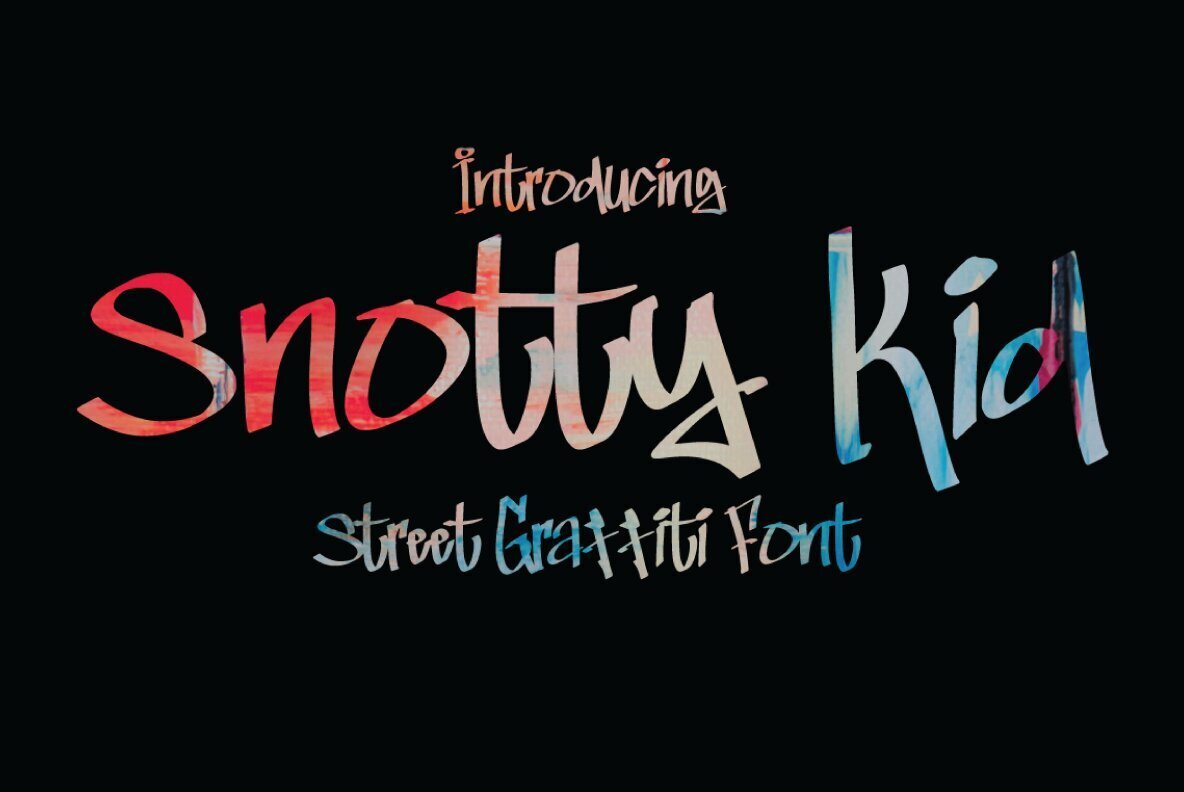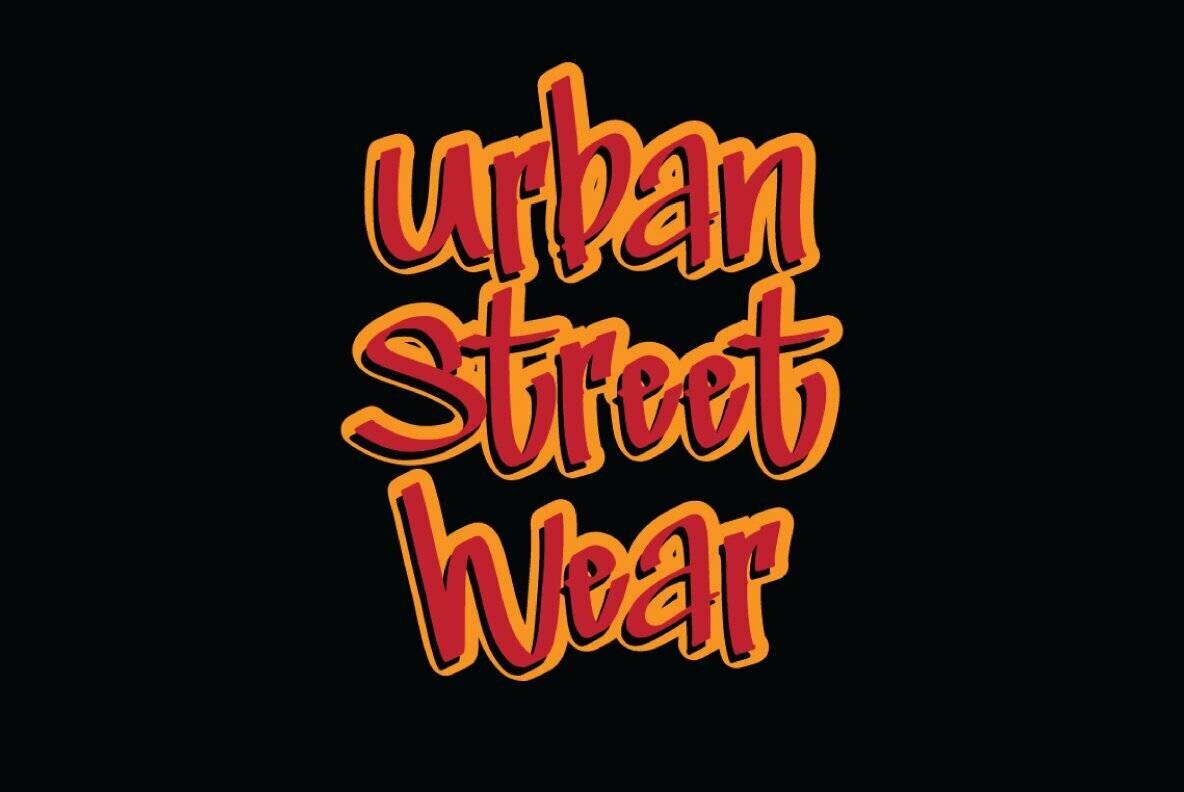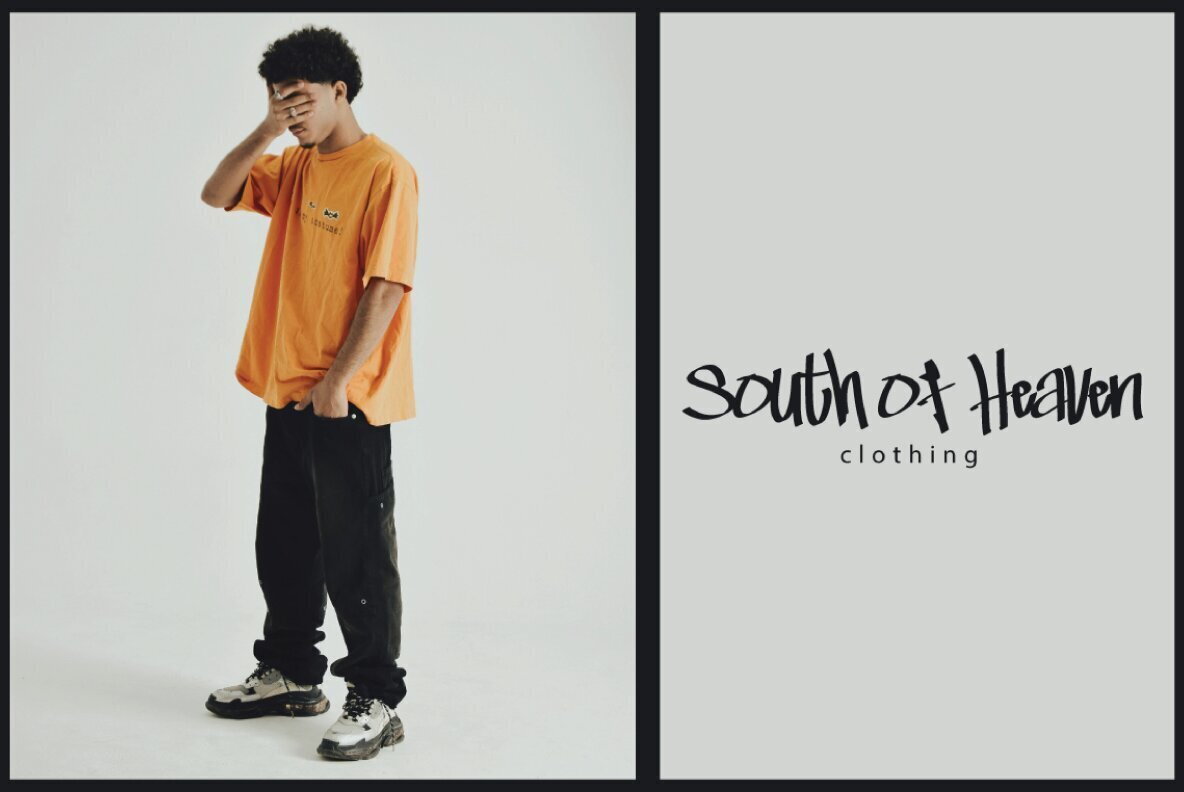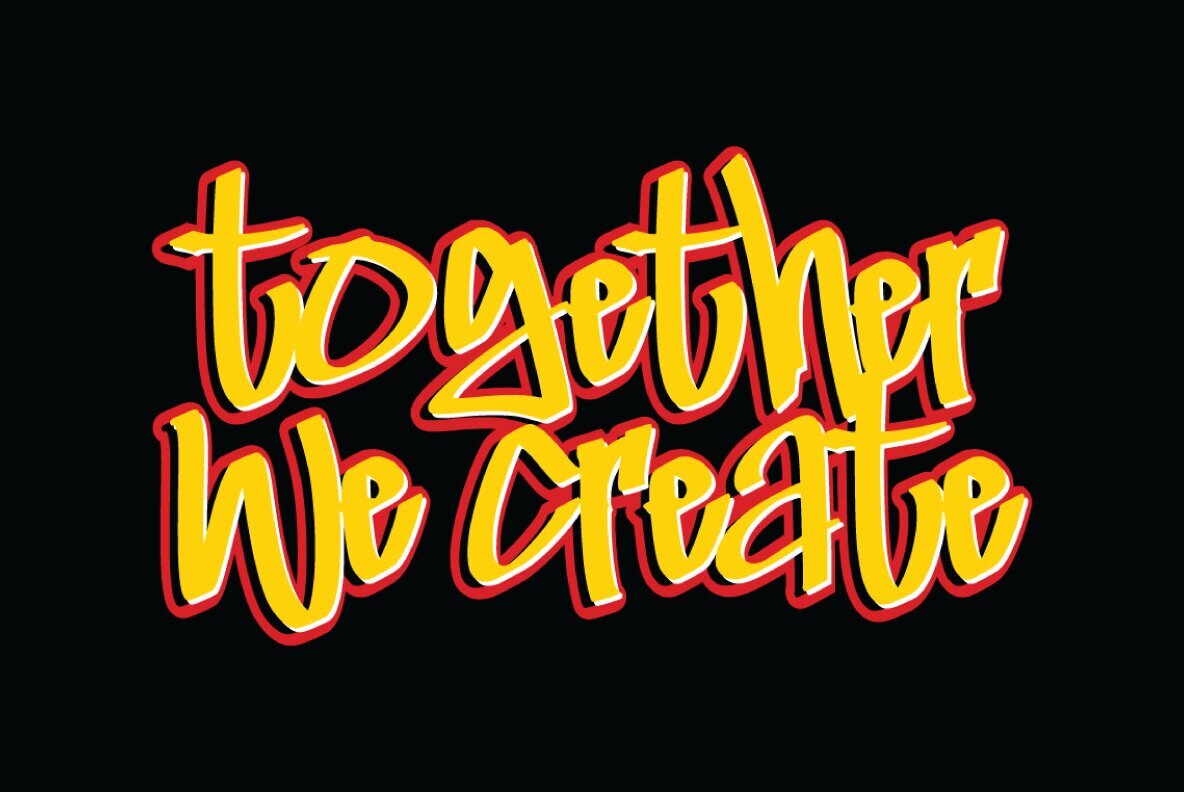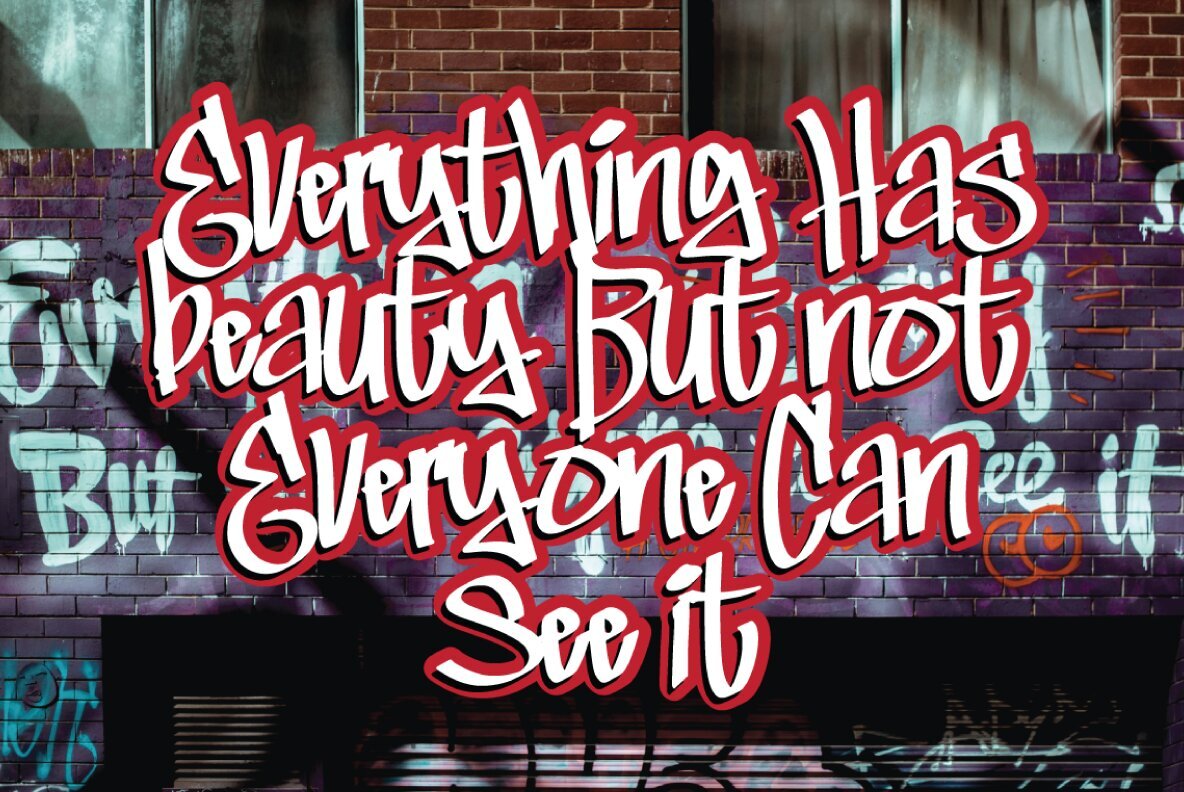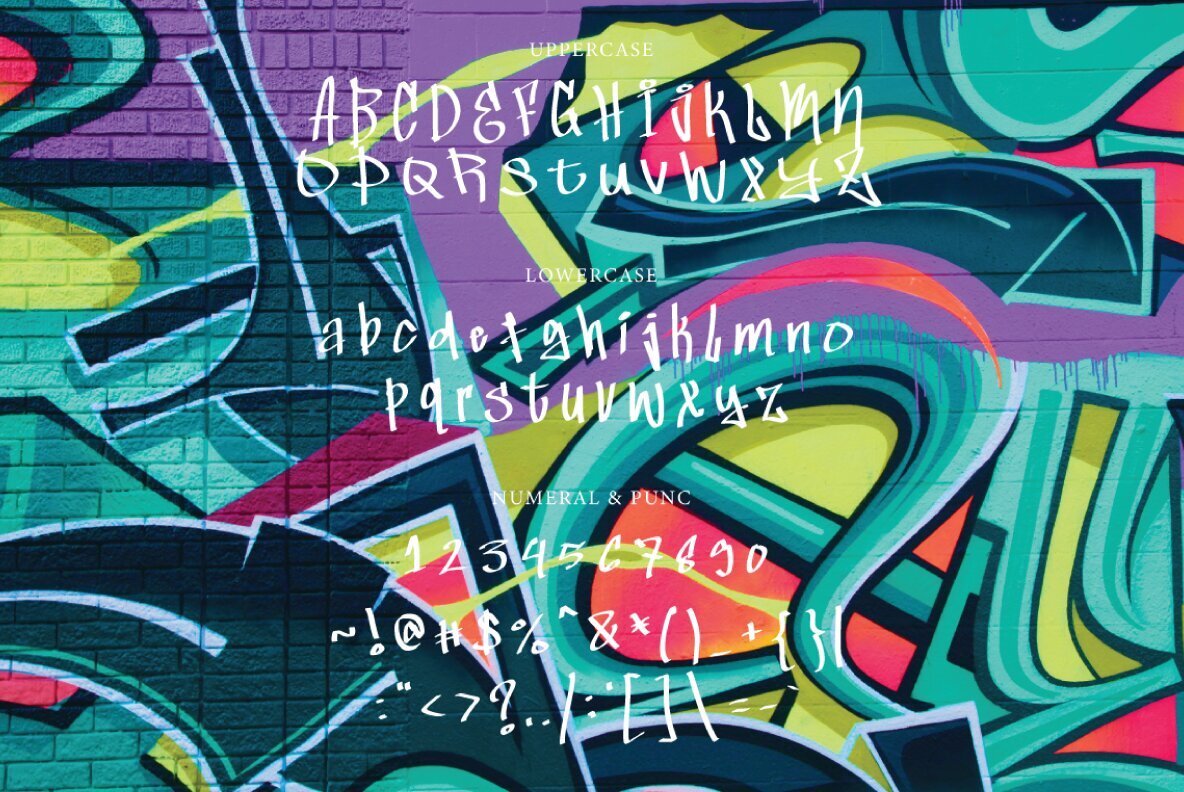
Snotty Kid Graffiti Font
Snotty Kid Graffiti Regular
Snotty Kid Graffiti brings a contemporary edge to your design projects, blending graffiti-inspired lines with polished minimalism. The font’s clean strokes and balanced forms deliver a sleek, sophisticated look that suits a variety of modern aesthetics. Each letter is carefully shaped to support legibility while adding an urban attitude to titles, posters, and digital graphics. Ideal for creative professionals seeking an expressive yet refined typeface, Snotty Kid Graffiti stands out without overpowering your visuals. Its versatility adapts easily to branding, album artwork, advertising, or any project aiming for a stylish street-inspired appeal.Snotty Kid Graffiti: Urban Style with Modern Precision